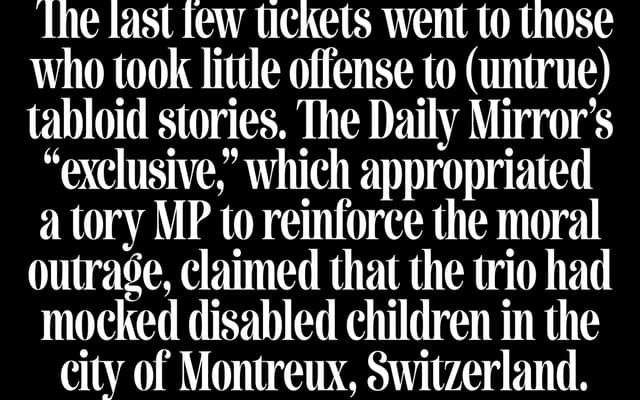
A display serif typeface drawing on the visual language of British tabloid and broadsheet headline lettering.
Inspired by the typographic texture of the British press, Newsagent takes its cues from the bold, no-nonsense headline faces found across tabloids and broadsheets. The name and the atmospheric story accompanying it root it firmly in a particular strand of late-1980s British everyday life. A single-weight release priced for small teams and individual users.
The typeface is presented with a name and aesthetic evoking tabloid and broadsheet newspaper headline typography, placing it firmly in the display serif tradition of British press lettering.